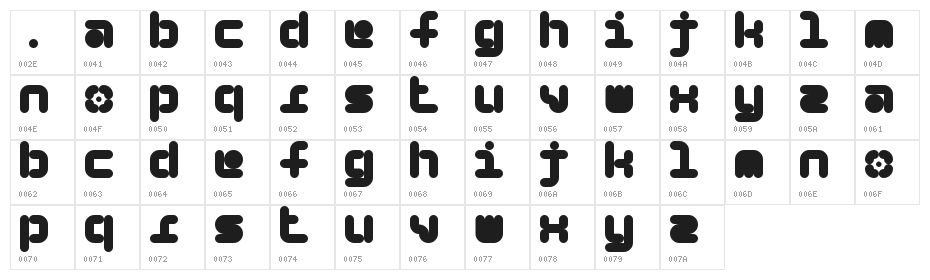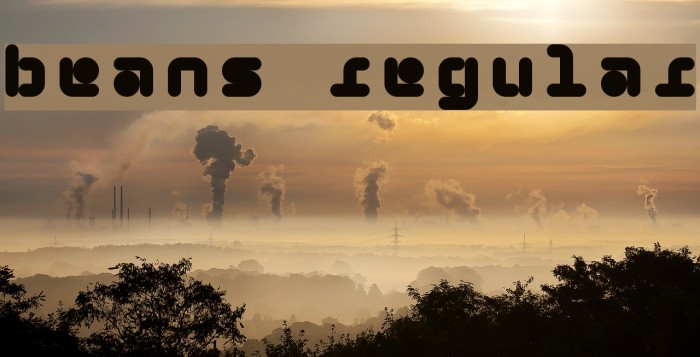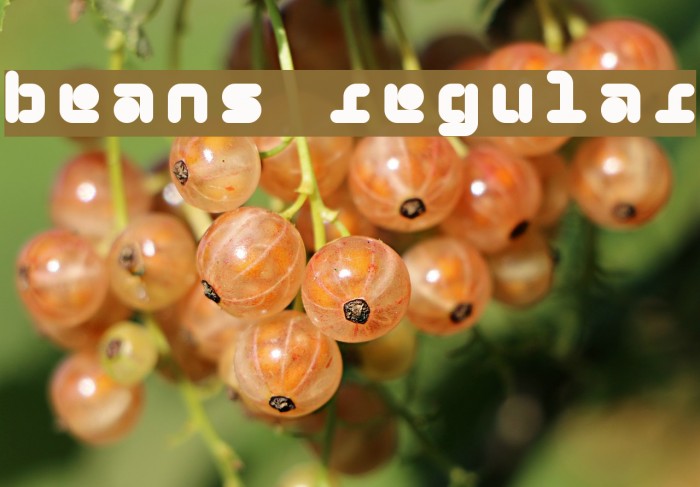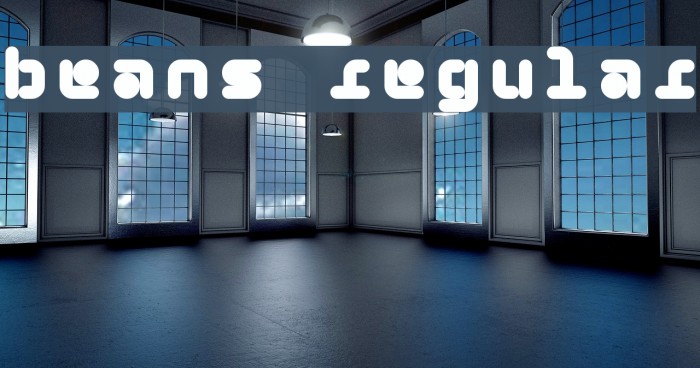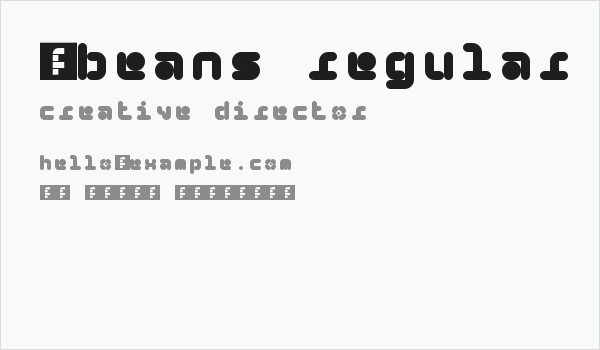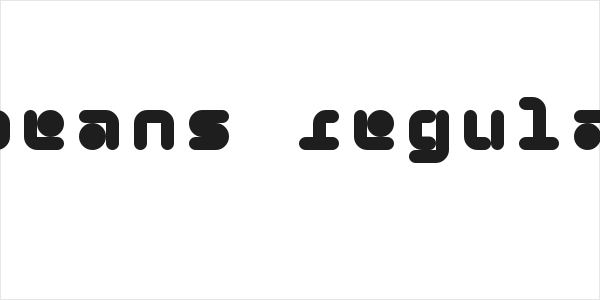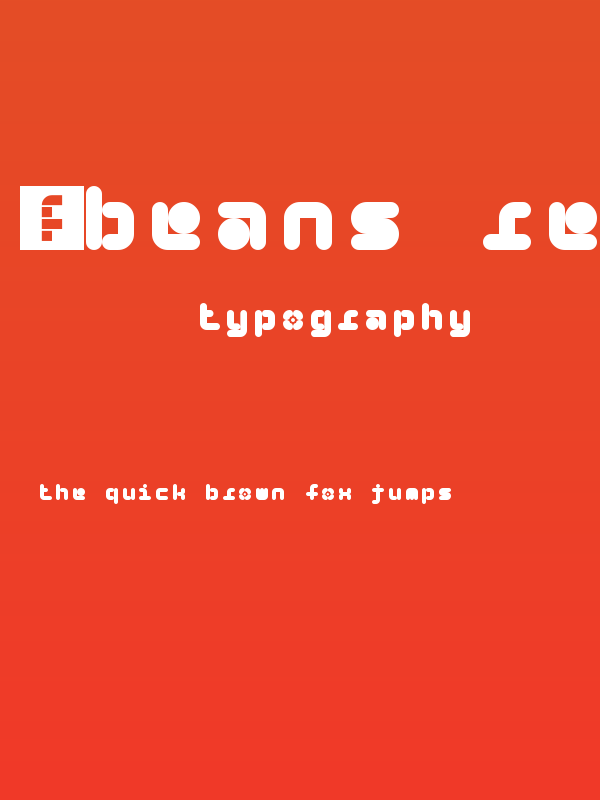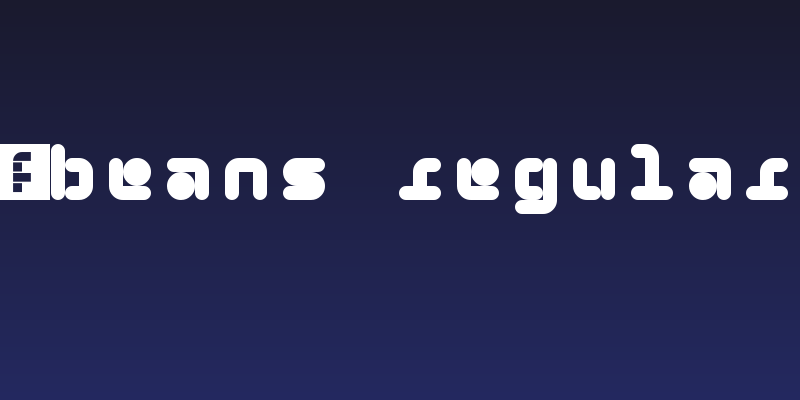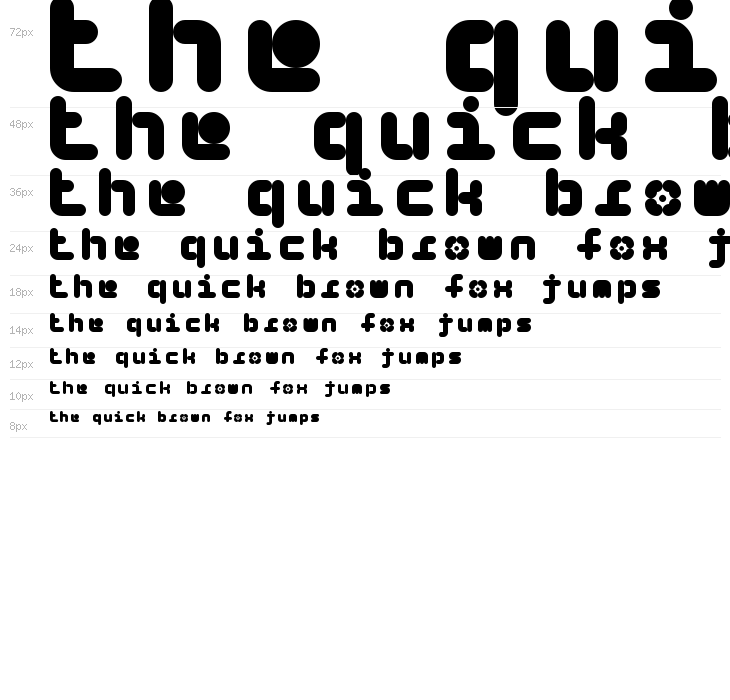
5Beans Regular Font
5Beans Regular Description
This font features a playful and bold design with rounded, geometric shapes. Each character is crafted with a consistent thickness, giving it a cohesive and modern appearance. The letters are distinct and easy to read, with a unique style that adds a touch of whimsy. The font's rounded edges and uniform stroke width contribute to its friendly and approachable feel. It's particularly suitable for creative projects that require a fun and engaging typeface.
| Proposed Projects | Ideal for children's books, playful branding, posters, and creative digital content. |